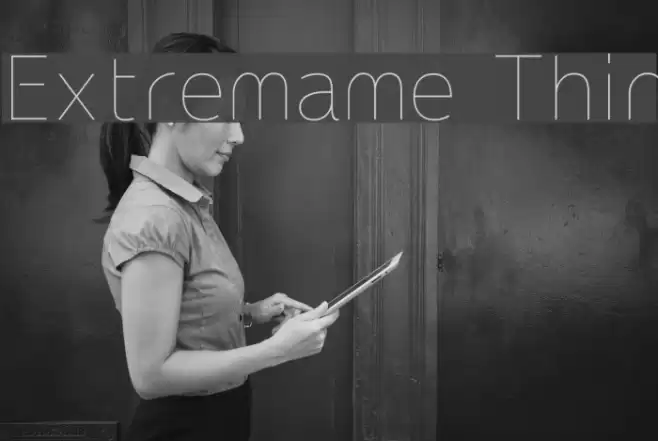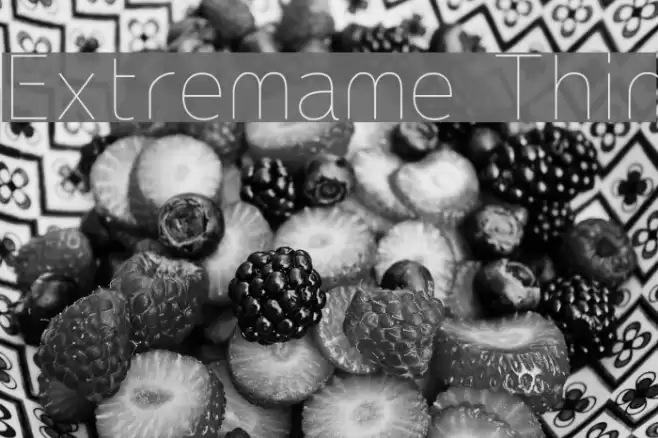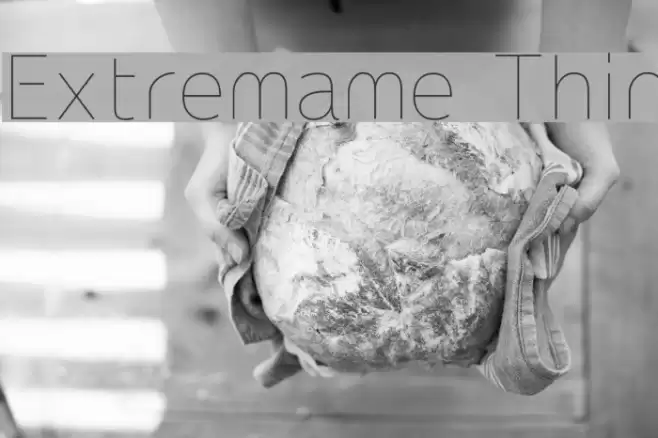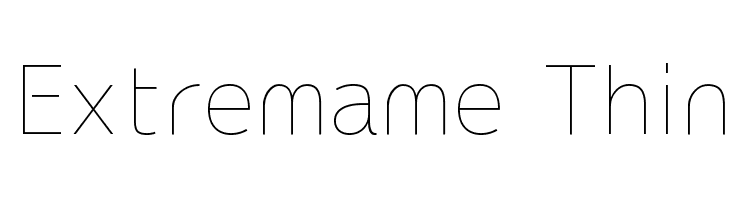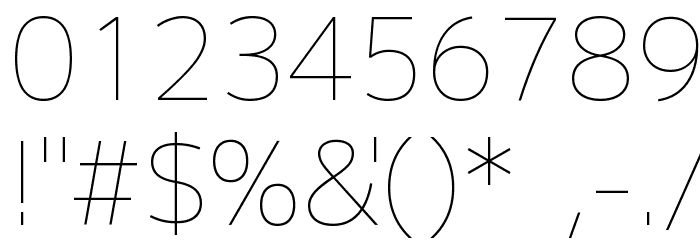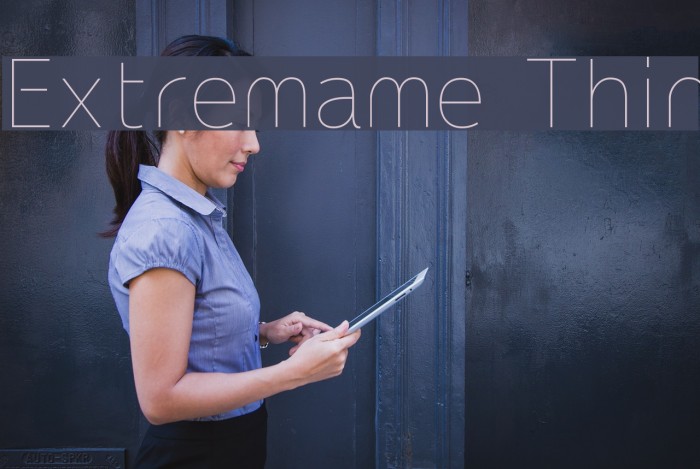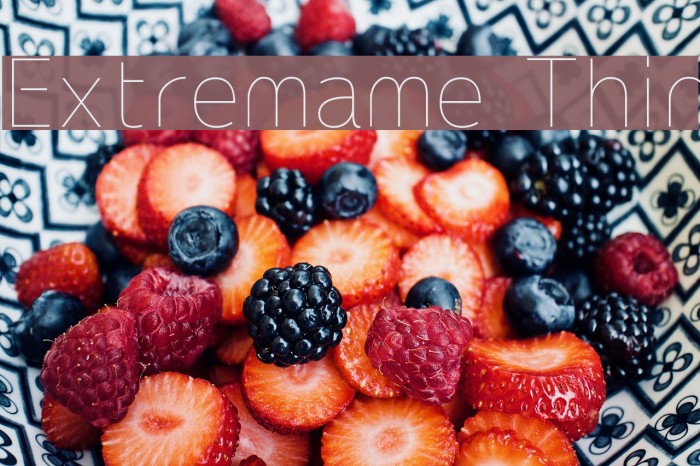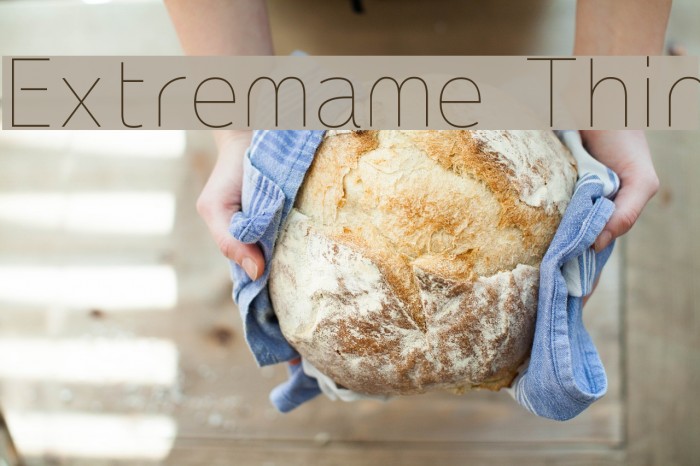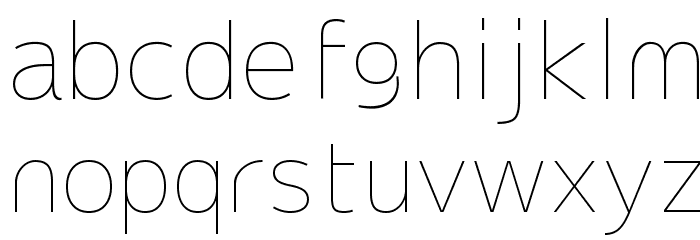
Extremame Thin Font
Extremame Thin Description
This font features an ultra-thin, sleek design with a modern and minimalist aesthetic. The characters are crafted with precision, showcasing clean lines and a uniform stroke width that gives it a refined and elegant appearance. The uppercase and lowercase letters maintain a consistent height and proportion, enhancing readability while preserving a sophisticated look. The numerals and special characters are designed to complement the alphabet, maintaining the same thin and airy style. This font is perfect for projects that require a contemporary and stylish touch, offering a sense of clarity and openness.
A modern, ultra-thin font with a sleek and minimalist design from Uncategorized fonts.
- Proposed Projects: Ideal for fashion magazines, luxury branding, minimalist websites, and modern art galleries.